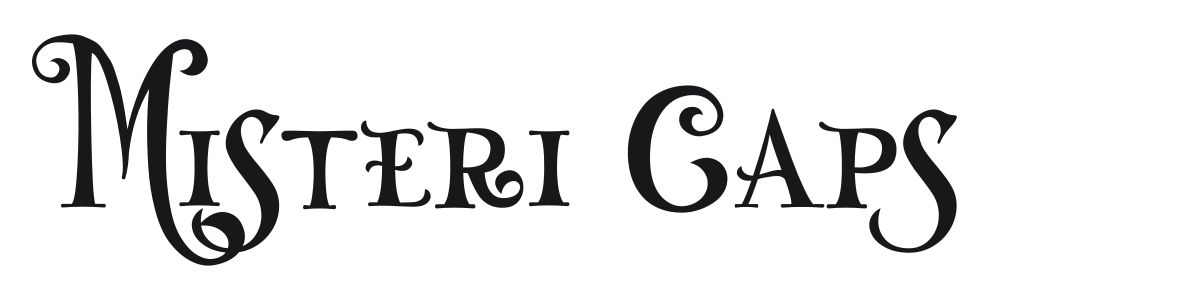
Misteri Caps
Misteri Caps is a decorative serif with a theatrical personality built from wildly varied cap heights and high stroke contrast. Some letters spike dramatically tall while others sit low, creating an intentionally irregular rhythm that feels hand-engraved and antique. It suits anywhere a sense of mystery, old-world drama, or storybook whimsy is the point.